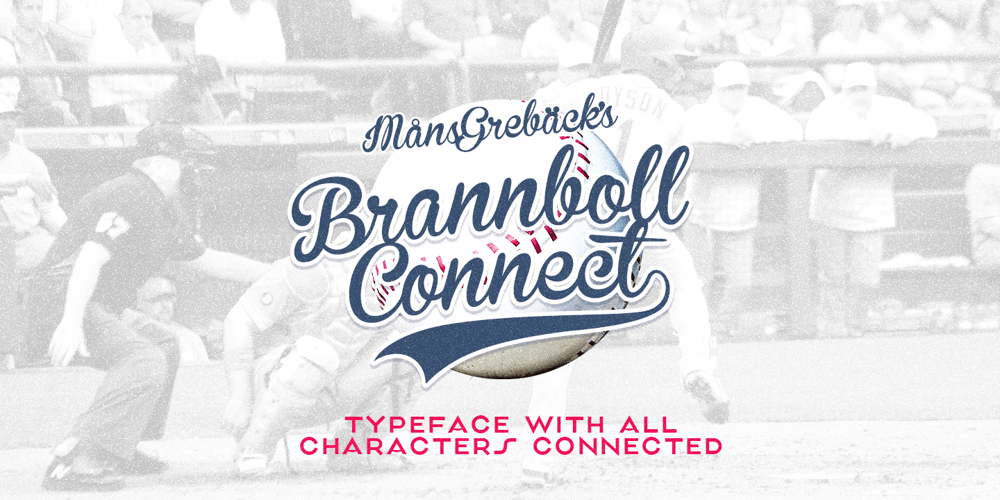
Brannboll Connect Font Family was designed by Måns Grebäck and published by Mans Greback. Brannboll Connect contains 2 styles and family package options. Brannboll Connect is a script sport typeface.The baseball-style lettering was drawn by Måns Grebäck in 2020.It is a specialist connected typeface:Each character and all their parts are physically connected, making it a lettering perfect for laser cutting, signs, jewelry, woodworking and embroidery. It also comes with the additional, decorative style Brannboll Connect Swash, which contains ten cool swashes to give the graphic extra expression. It has a very extensive lingual support, covering all European Latin scripts.The font contains all characters you’ll ever need, including all punctuation and numbers.